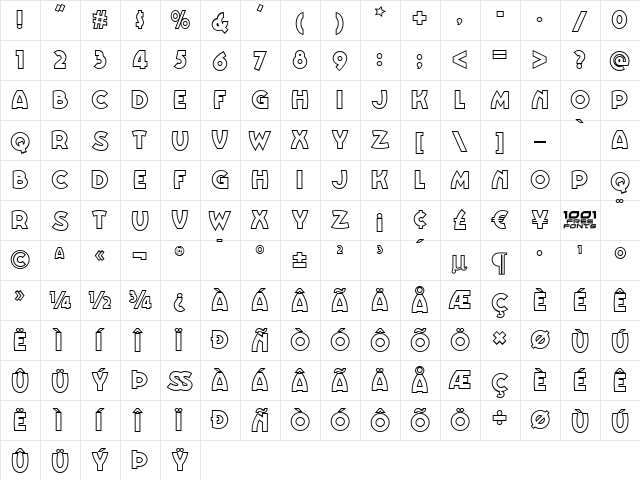
Vinnie BoomBah NF Regular
Design Context for Vinnie BoomBah NF Typeface
Vinnie BoomBah NF is a composed and adaptable typeface that performs quietly and consistently across a wide range of design contexts.